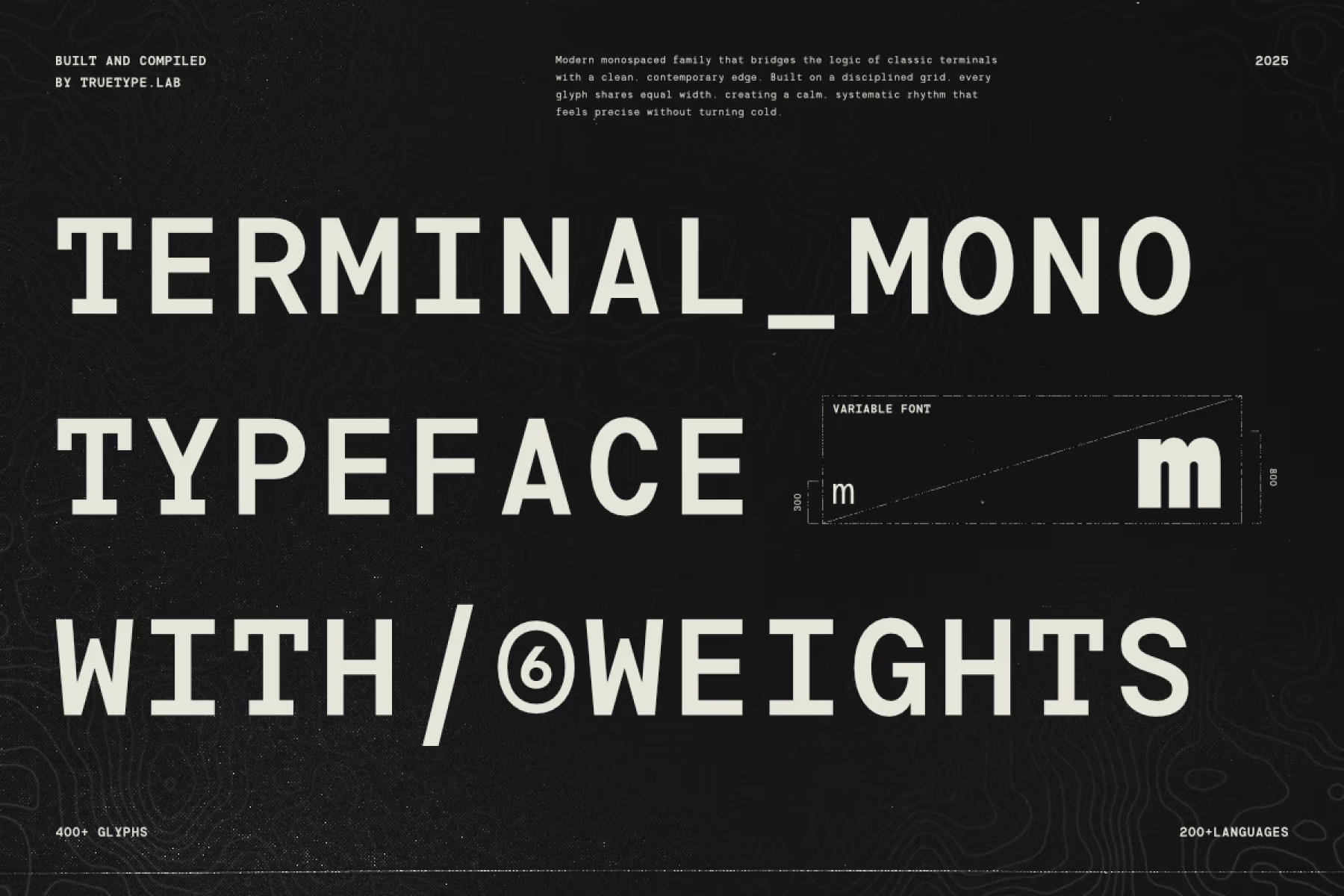
TRT Terminal Mono Font Family
TRT Terminal Mono Font Family is a versatile font designed to adapt beautifully across different design styles, offering dependable readability and balance. Terminal Monospace is a modern monospace typeface designed as a complete typographic system rather than a collection of shapes. Built on a strict and consistent grid, every character shares equal width, creating a stable rhythm that feels precise, measured, and intentional.
Inspired by classic terminal typography and data-driven environments, Terminal Monospace introduces a softer, contemporary interpretation maintaining technical clarity without becoming cold or mechanical. Its proportions are carefully calibrated to ensure optical consistency across all weights, preserving alignment, spacing, and structural logic throughout the family.
The typeface includes six carefully balanced weights, ranging from Light to Extra Bold, all built on the same underlying structure. This allows designers to create hierarchy, contrast, and emphasis without breaking layout logic. Terminal Monospace is also available as a variable font, enabling smooth transitions across the weight axis while maintaining consistent spacing and proportions.
With over 400 glyphs, extended language support (200+ languages), and structured numeral styles—including regular, circled, and filled figures Terminal Monospace excels in environments that demand clarity and control. It performs equally well in dense informational layouts, editorial systems, UI/UX interfaces, exhibition graphics, technical documentation, and conceptual visual identities.
Terminal Monospace is a typeface about systems, time, structure, and accumulation designed to scale, adapt, and remain stable across digital and print applications.